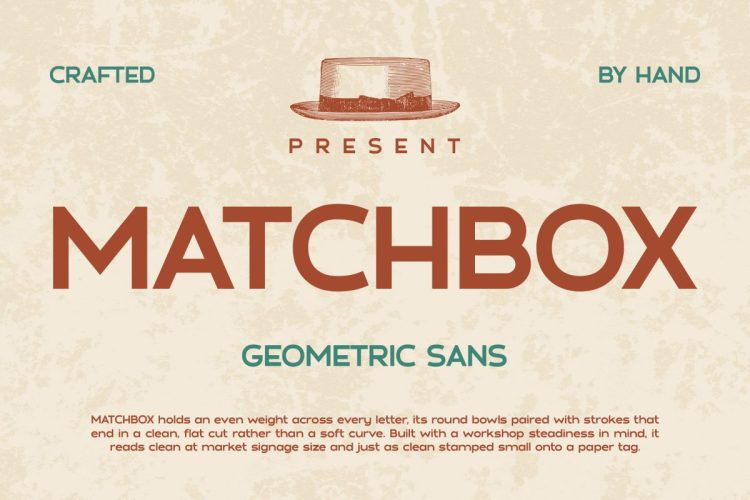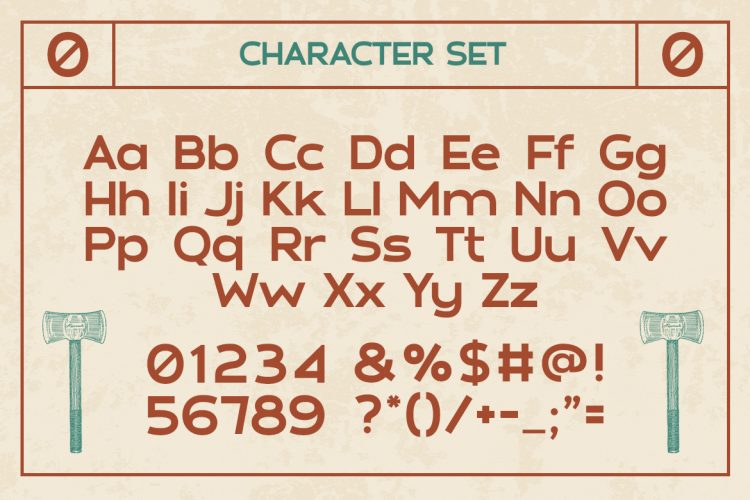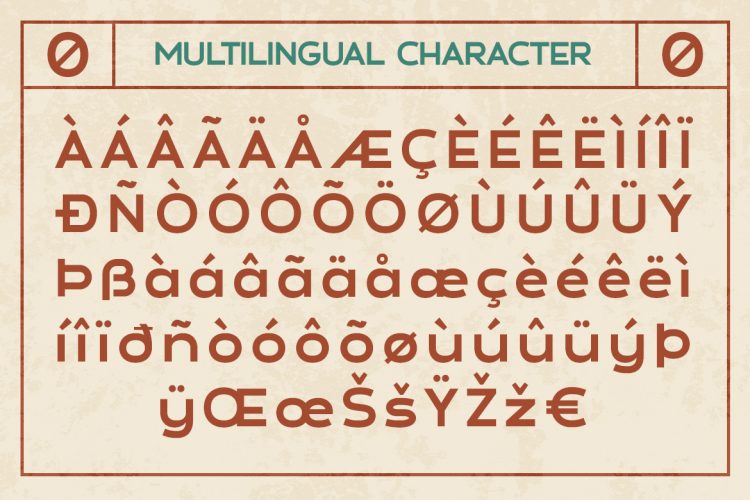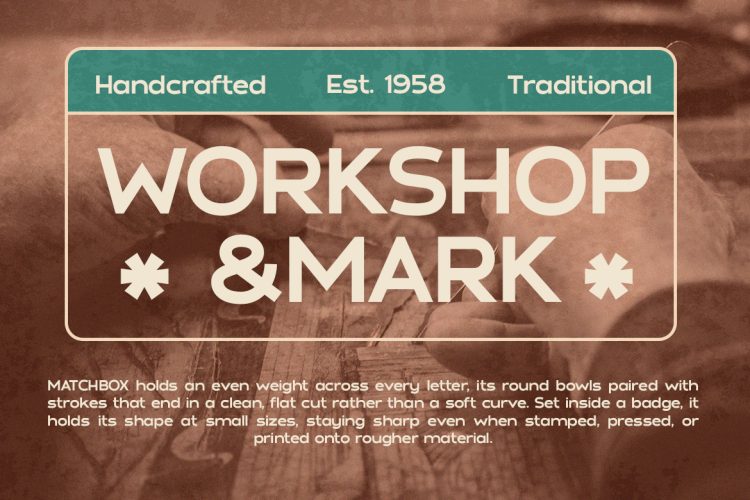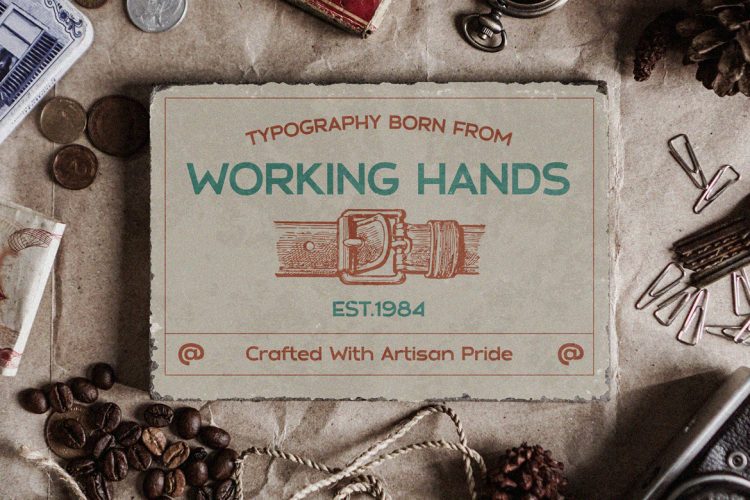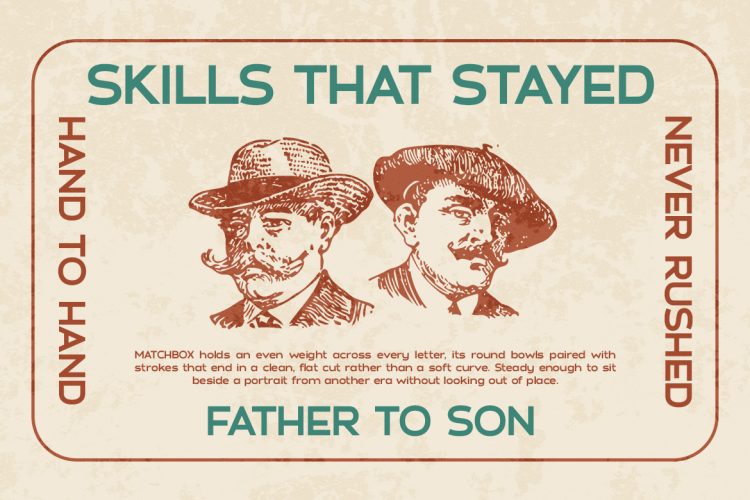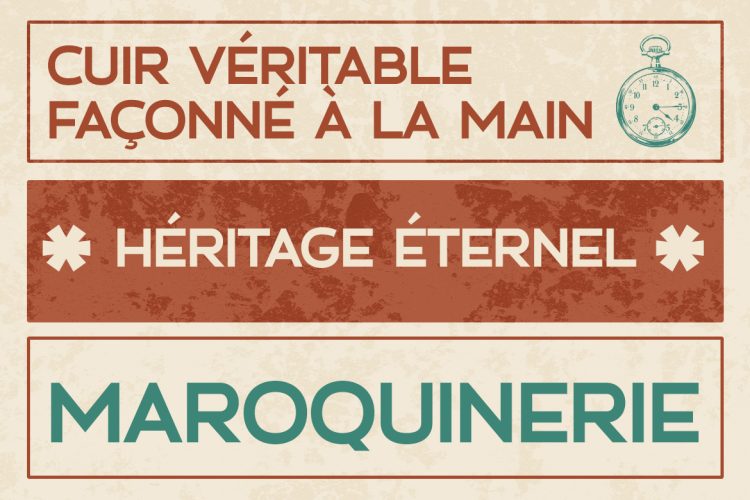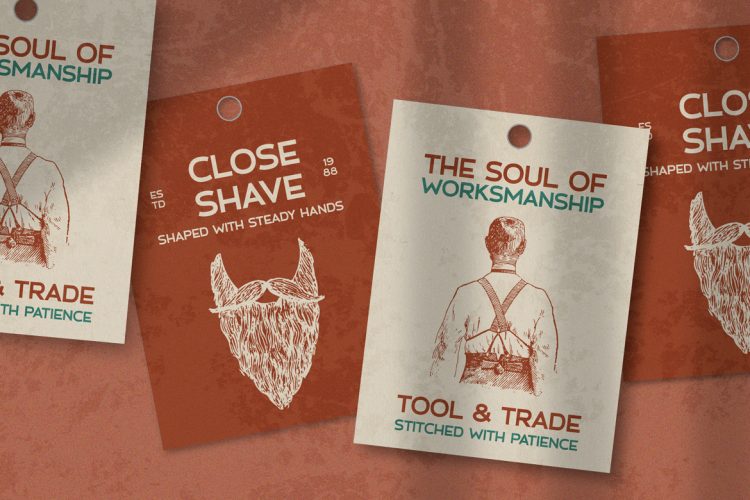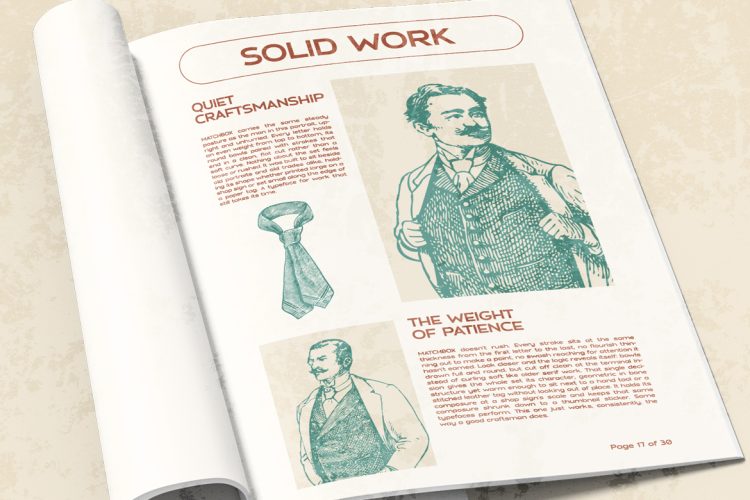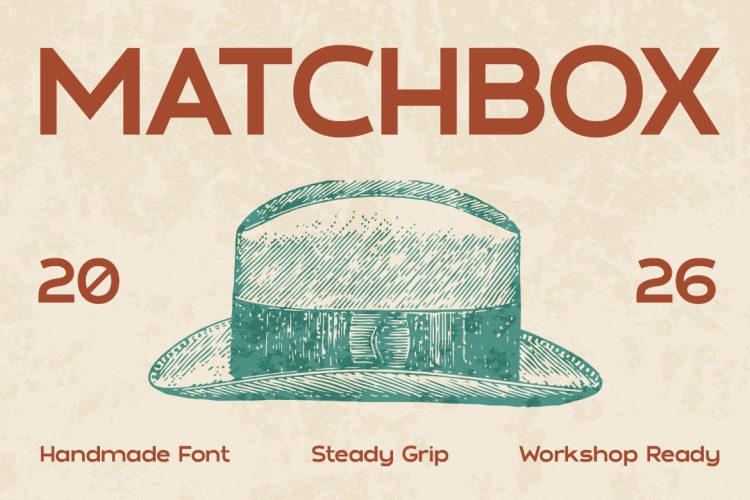
MATCHBOX โ Handcrafted Retro Style, Bold Geometry & Timeless Workshop Character
Retro Font MATCHBOX brings a warm, handcrafted personality. It draws inspiration from vintage workshops, artisan tools, old matchboxes, and heritage labels. Moreover, its bold geometric structure gives the letters a strong presence. Sturdy shapes and balanced proportions create a nostalgic look. At the same time, MATCHBOX adds a fresh modern edge. Furthermore, its clean letterforms keep headlines clear and easy to read. Meanwhile, subtle handmade details add extra personality. As a result, MATCHBOX feels both practical and expressive. In addition, MATCHBOX works well across many design styles. Its strong display presence makes headlines stand out. Plus, Multilingual Support (67 Languages) helps you reach a wider audience.
MATCHBOX is ideal for workshop branding, artisan logos, vintage packaging, and product labels. In addition, it works well for craft businesses, posters, badges, and cafรฉ graphics. Furthermore, you can use it for signage, editorial layouts, social media designs, and promotional artwork. Likewise, its bold character makes memorable logos and headlines.MATCHBOX suits graphic designers and branding studios. Moreover, it is a great fit for handmade businesses, craftsmen, packaging designers, and creative entrepreneurs. Whether you are creating a heritage-inspired identity or a modern craft brand, MATCHBOX adds an authentic handcrafted touch. Therefore, it can easily adapt to both nostalgic and contemporary concepts.
Bring Back the Crafted Spirit
Turn simple lettering into a bold retro statement with MATCHBOX. Its sturdy geometry gives every design a confident look. Meanwhile, its nostalgic character adds warmth and personality. At the same time, the clean structure keeps your typography versatile. Therefore, choose Retro Font MATCHBOX for brands that want a crafted and memorable feel. Ultimately, its timeless workshop spirit can give your next project a distinctive retro identity.